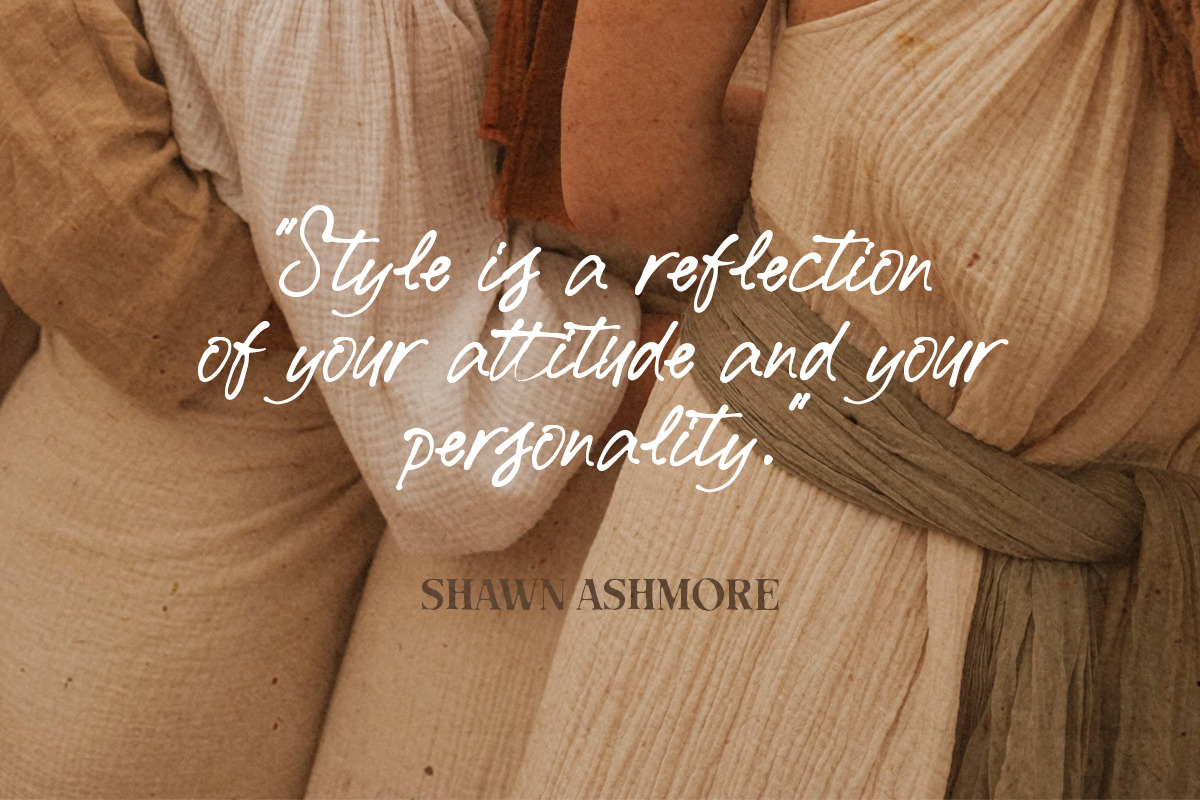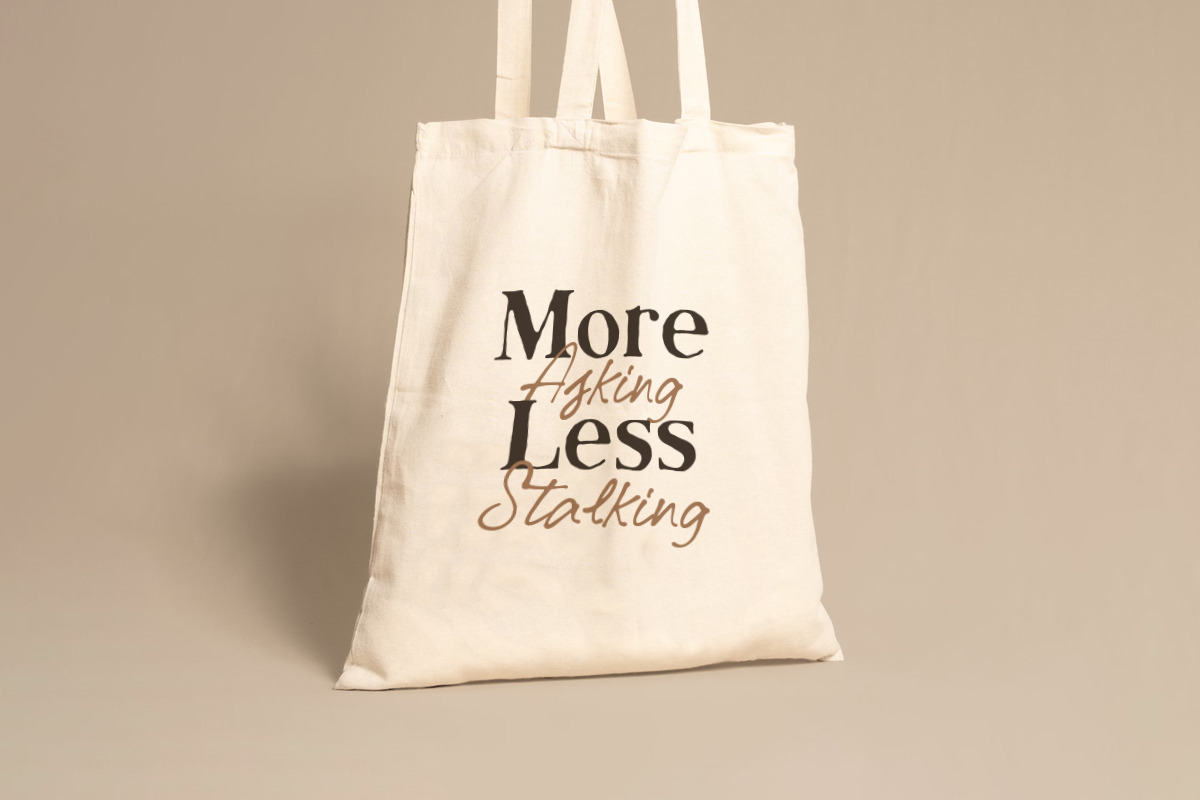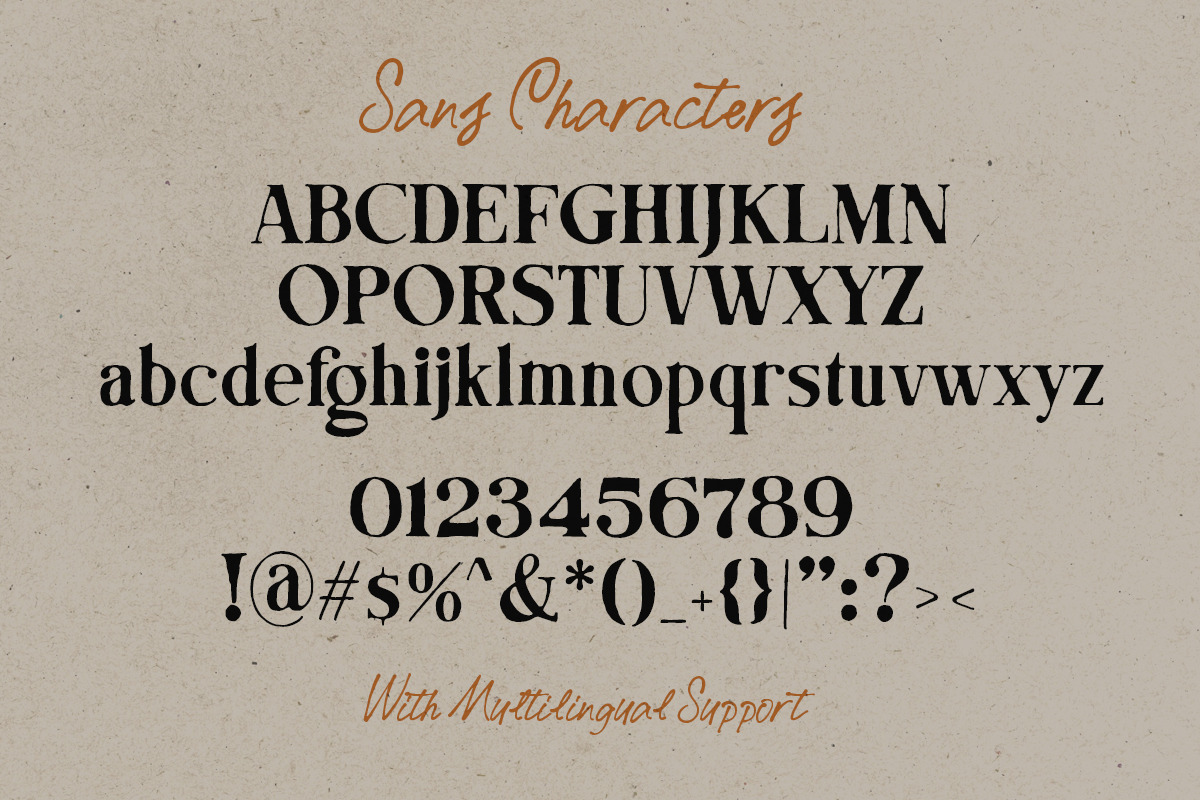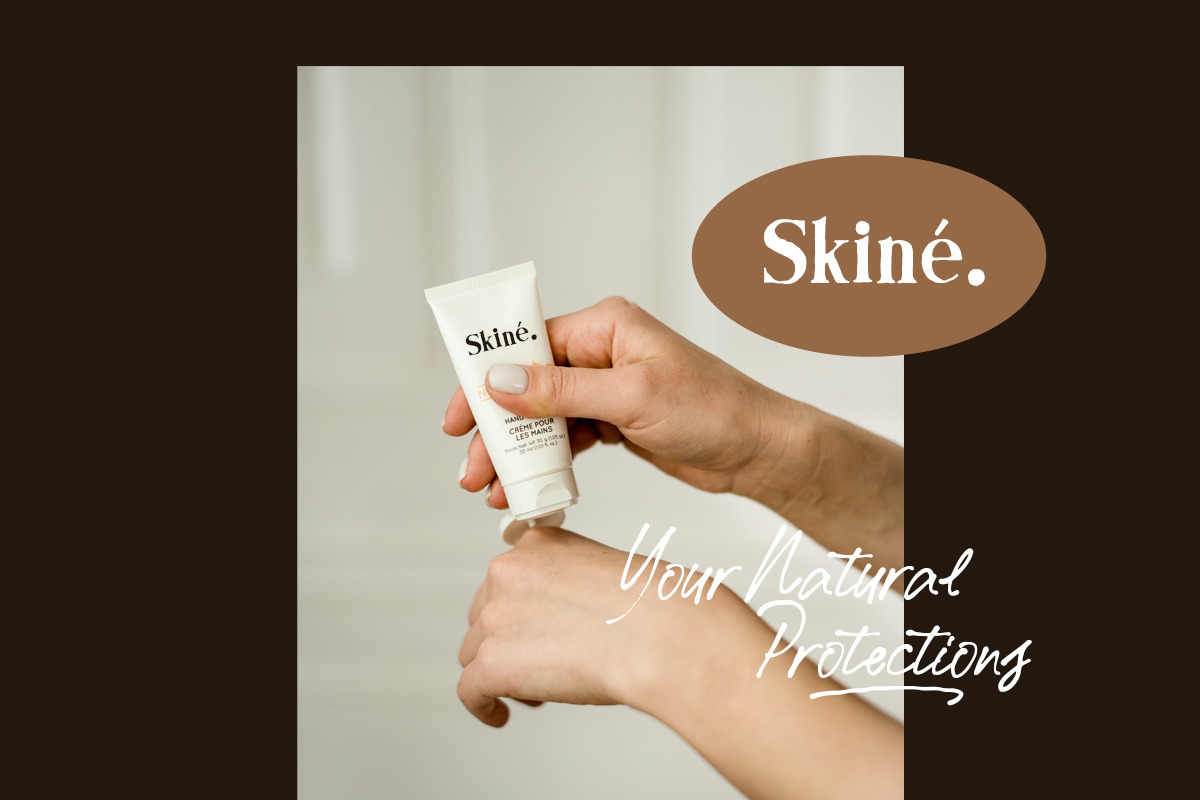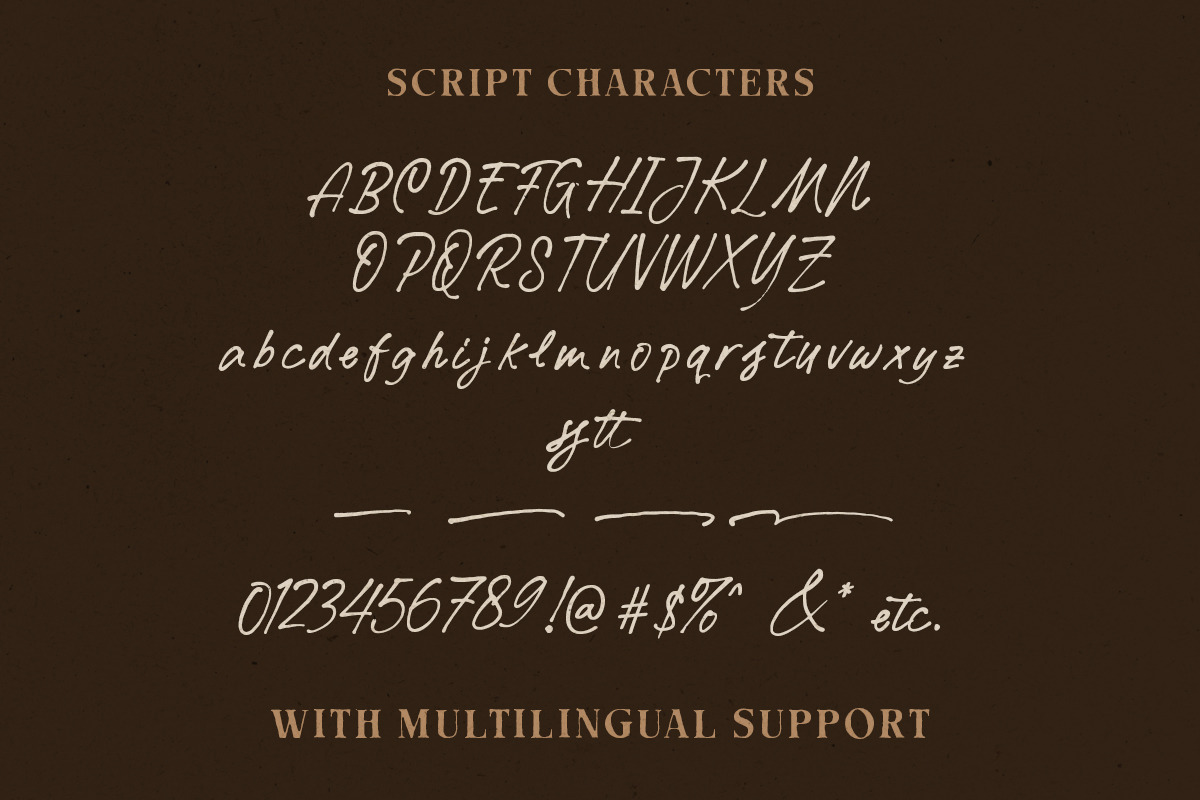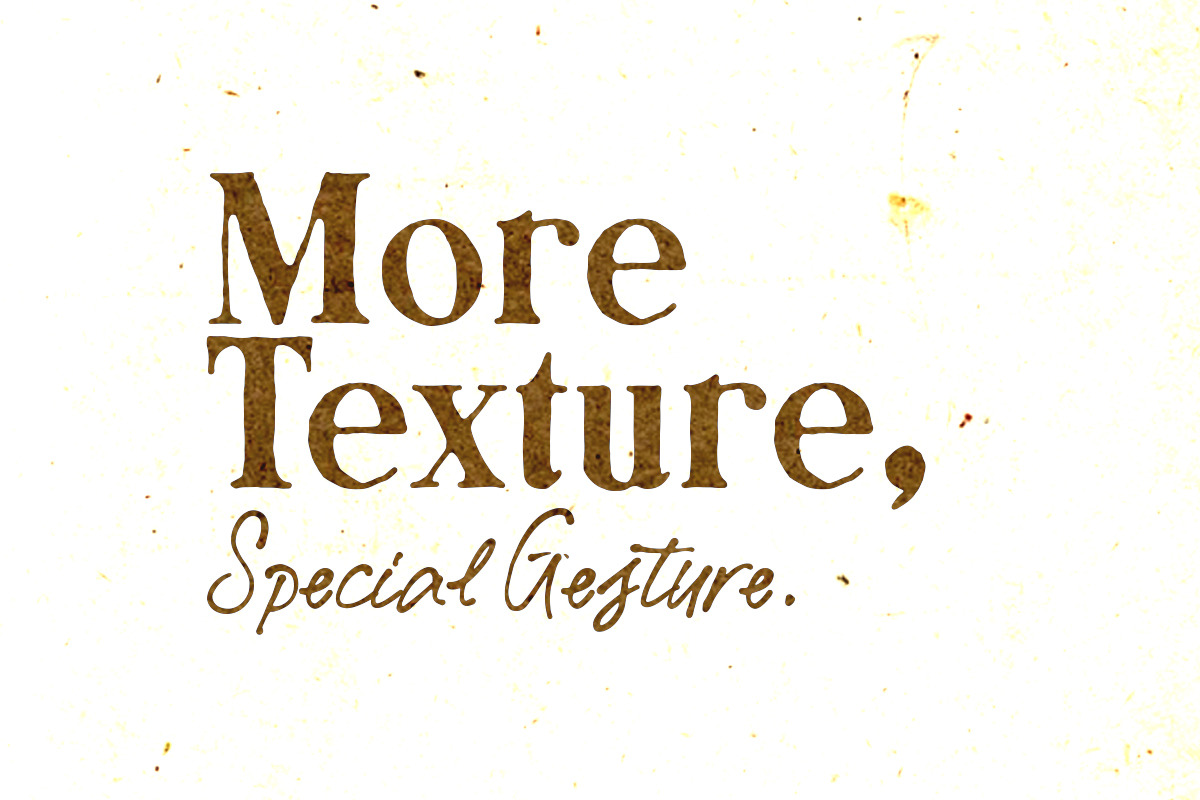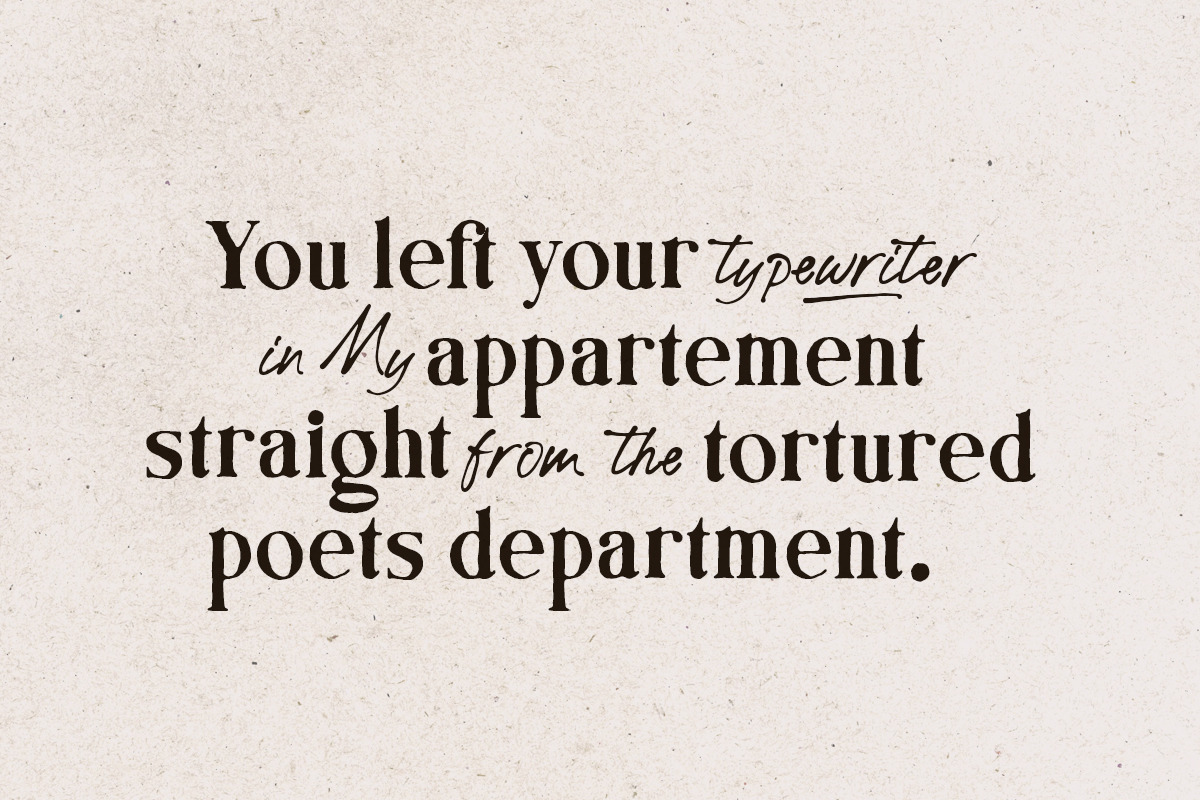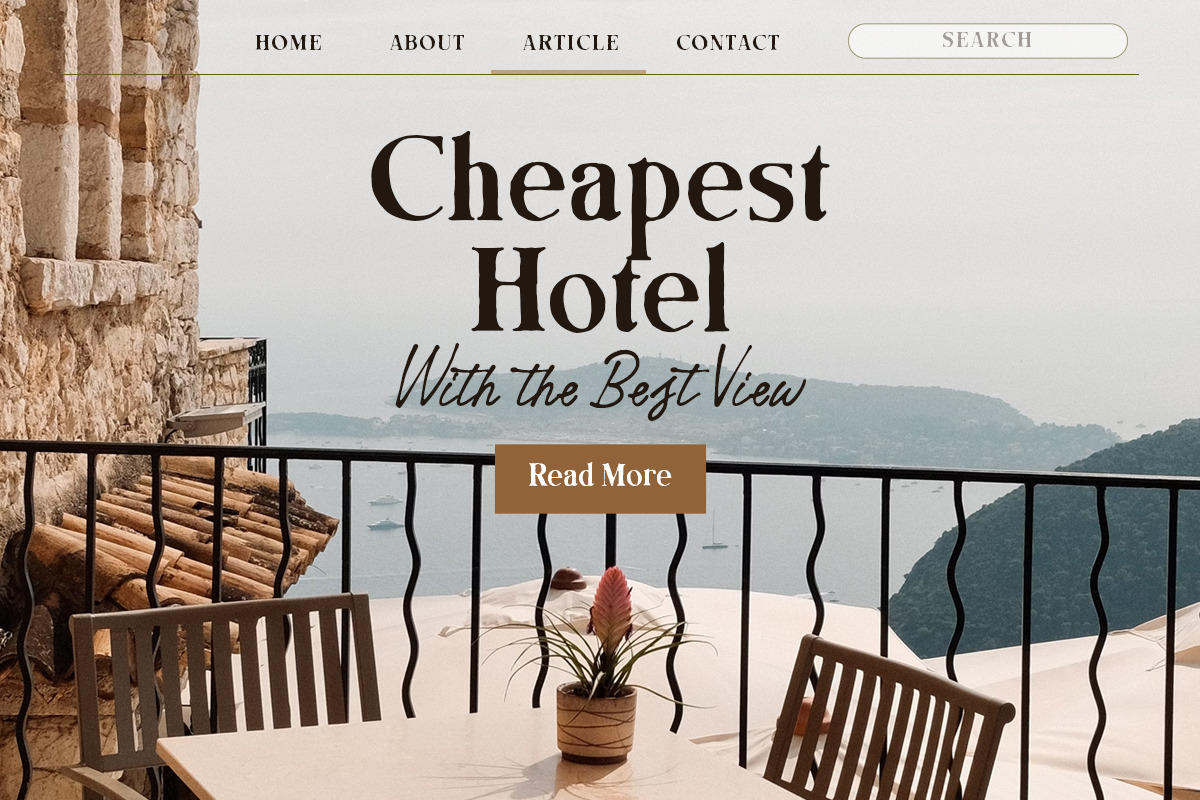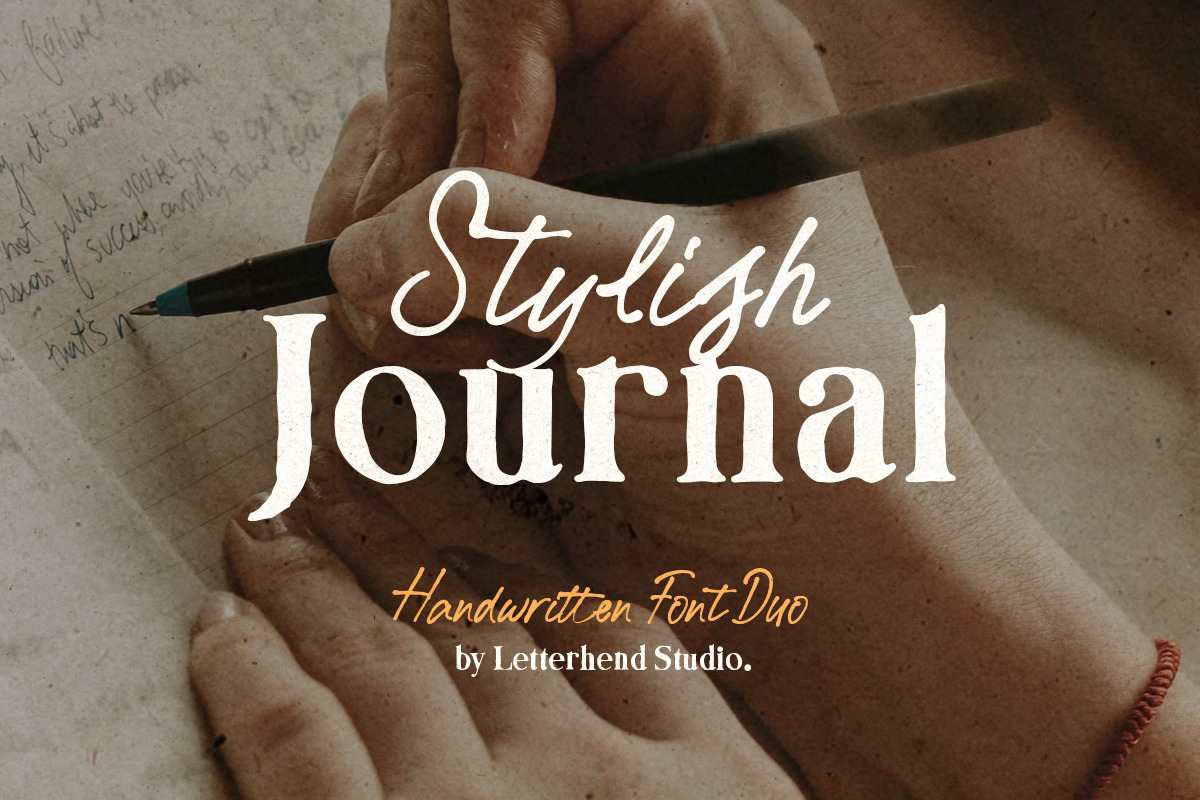
Stylish Journal – A Handwritten Font
Stylish Journal is a beautifully crafted handwritten font duo that blends a rustic serif with an elegant script, creating a warm and personal touch for your designs. Perfect for branding, journaling, wedding invitations, book covers, and vintage-inspired projects, this font exudes authenticity and charm. Whether you're crafting heartfelt quotes, designing stationery, or enhancing your social media graphics, Stylish Journal adds a timeless and expressive feel to your work.